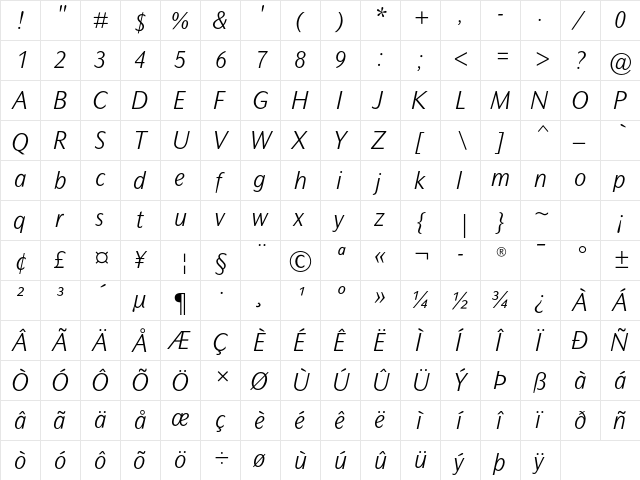
Mahsuri Sans MT Std Light It
| Foundry | Agfa Monotype Corporation |
Design Context for Mahsuri Sans MT Std Typeface
Mahsuri Sans MT Std offers clean, dependable letterforms without strong stylistic allegiance, making it a practical choice for designers who need flexibility. Its slender proportions lend an understated elegance to any composition.